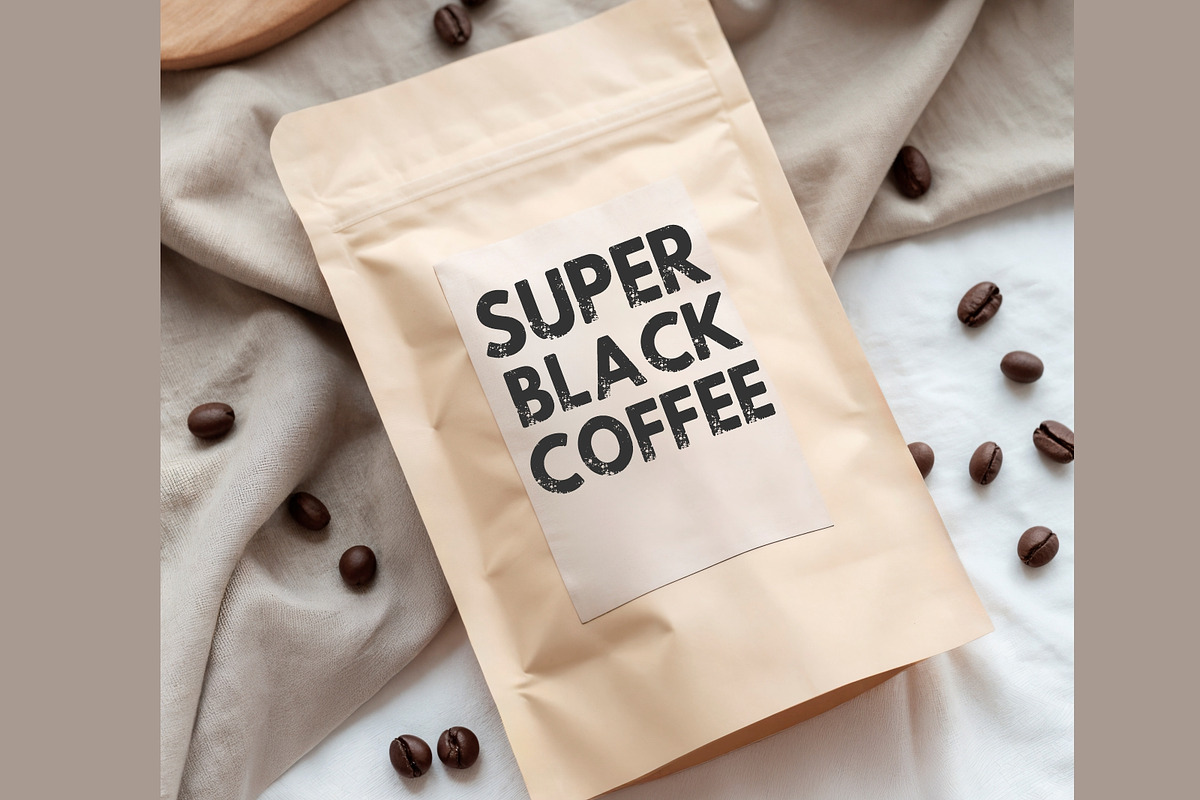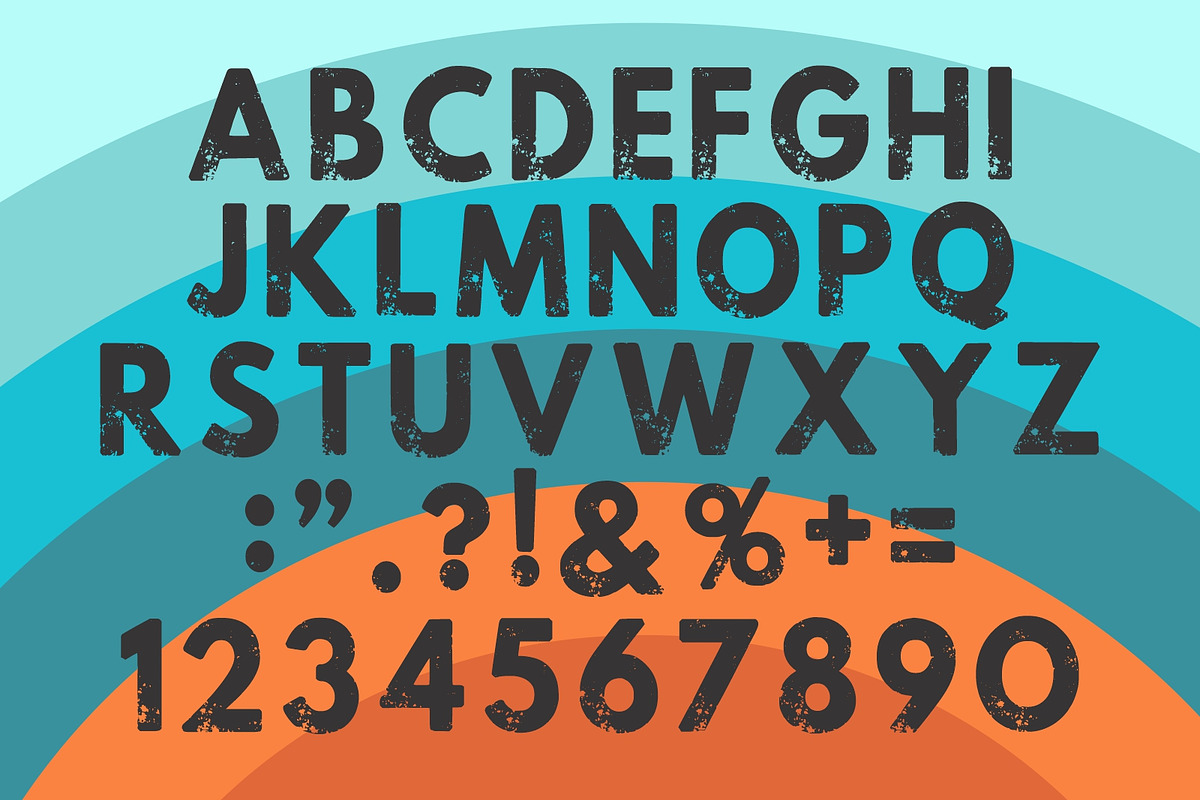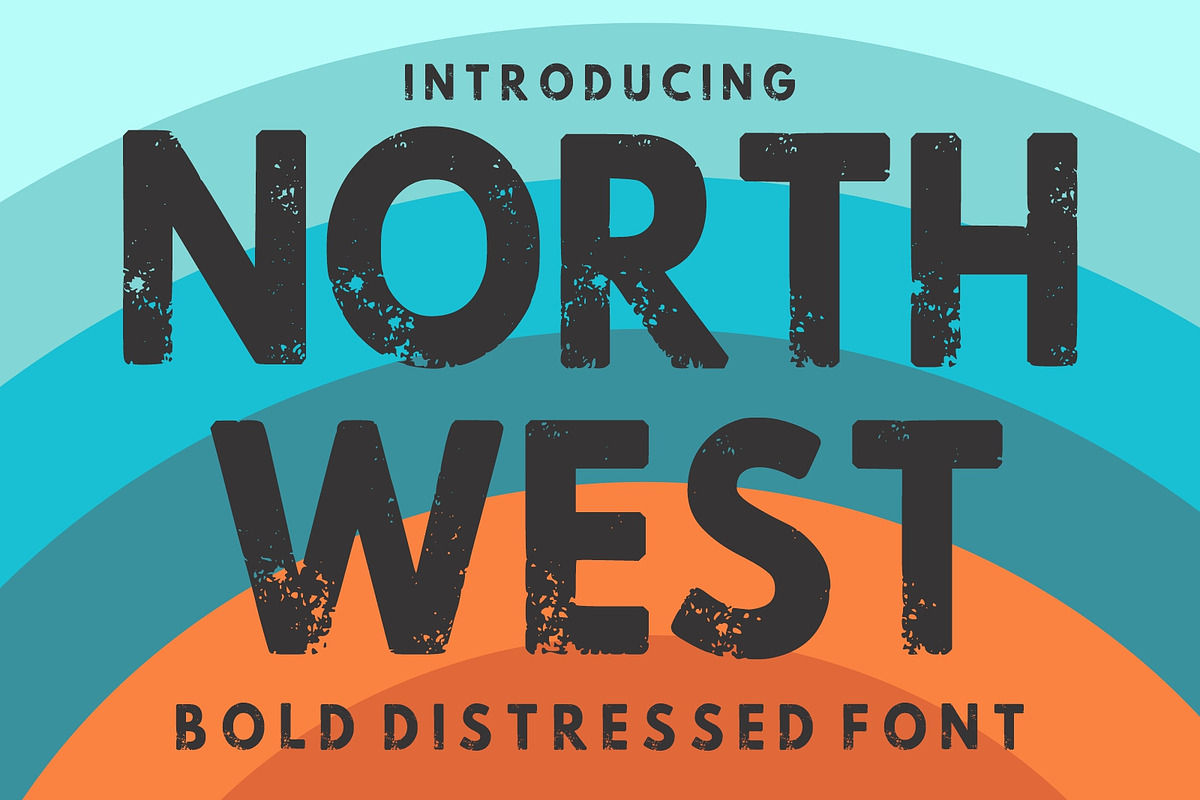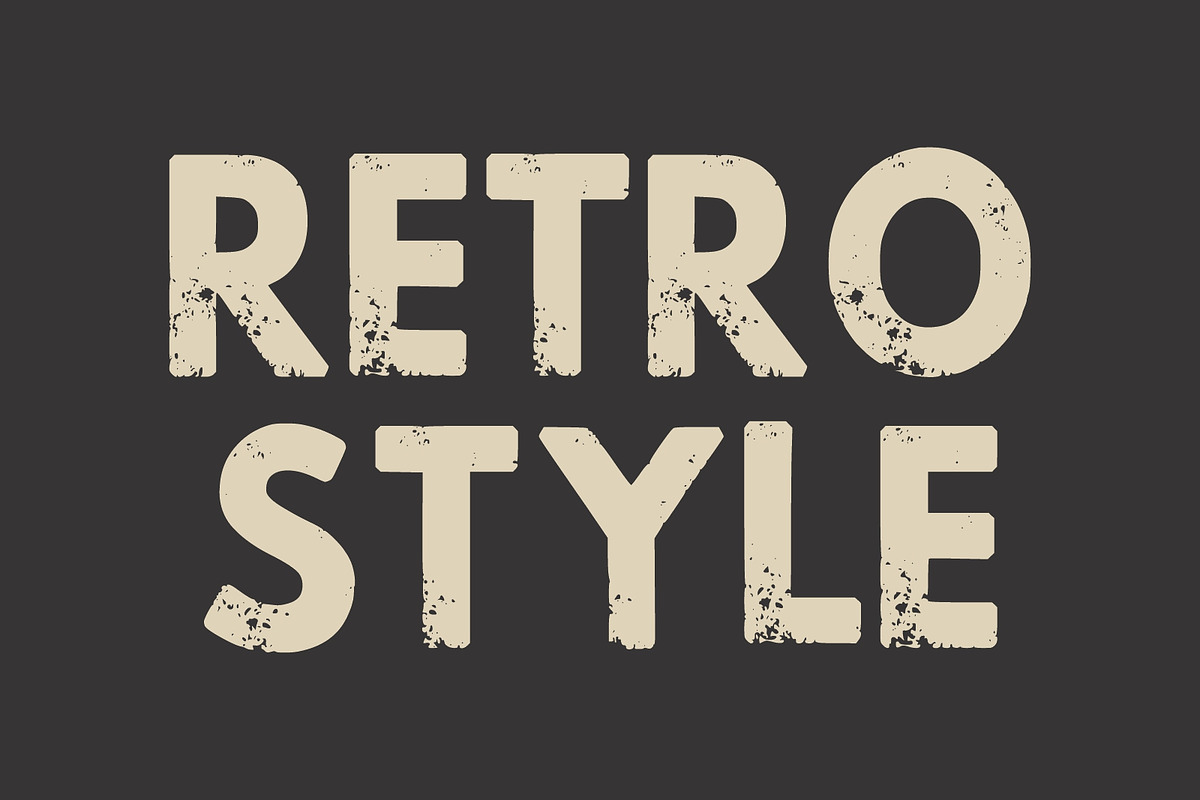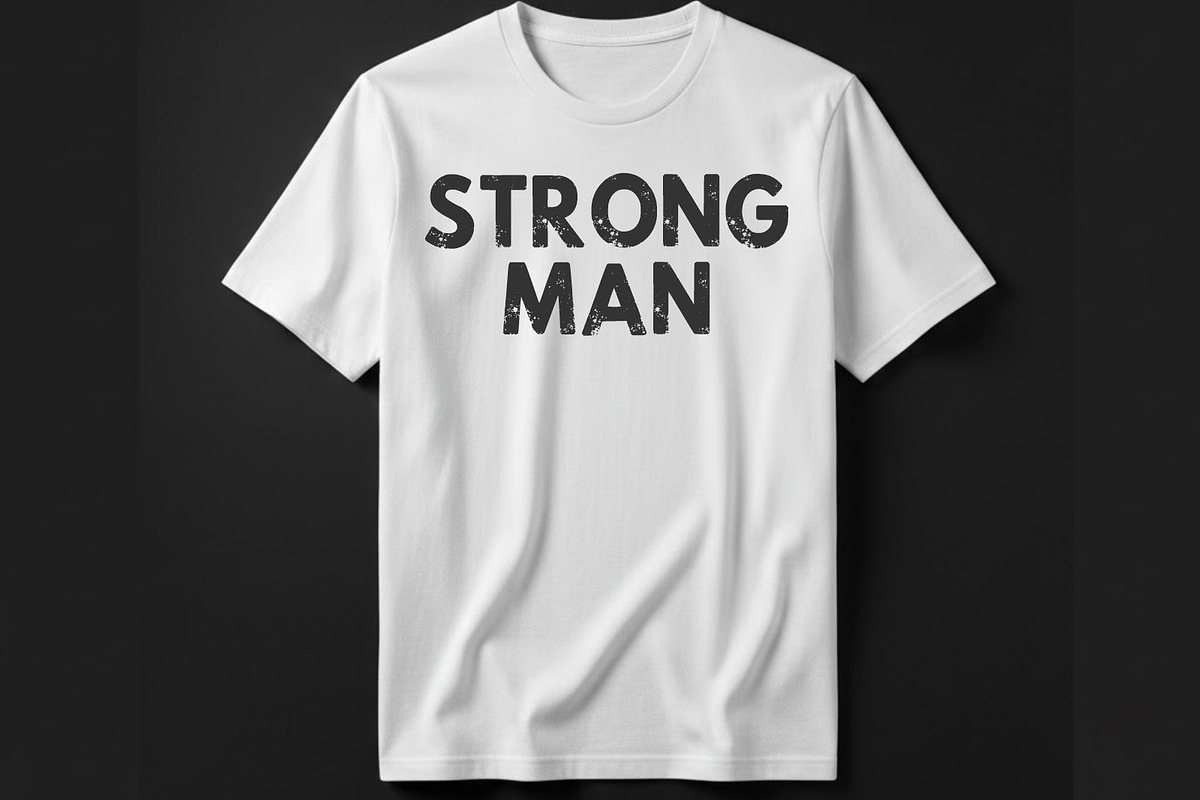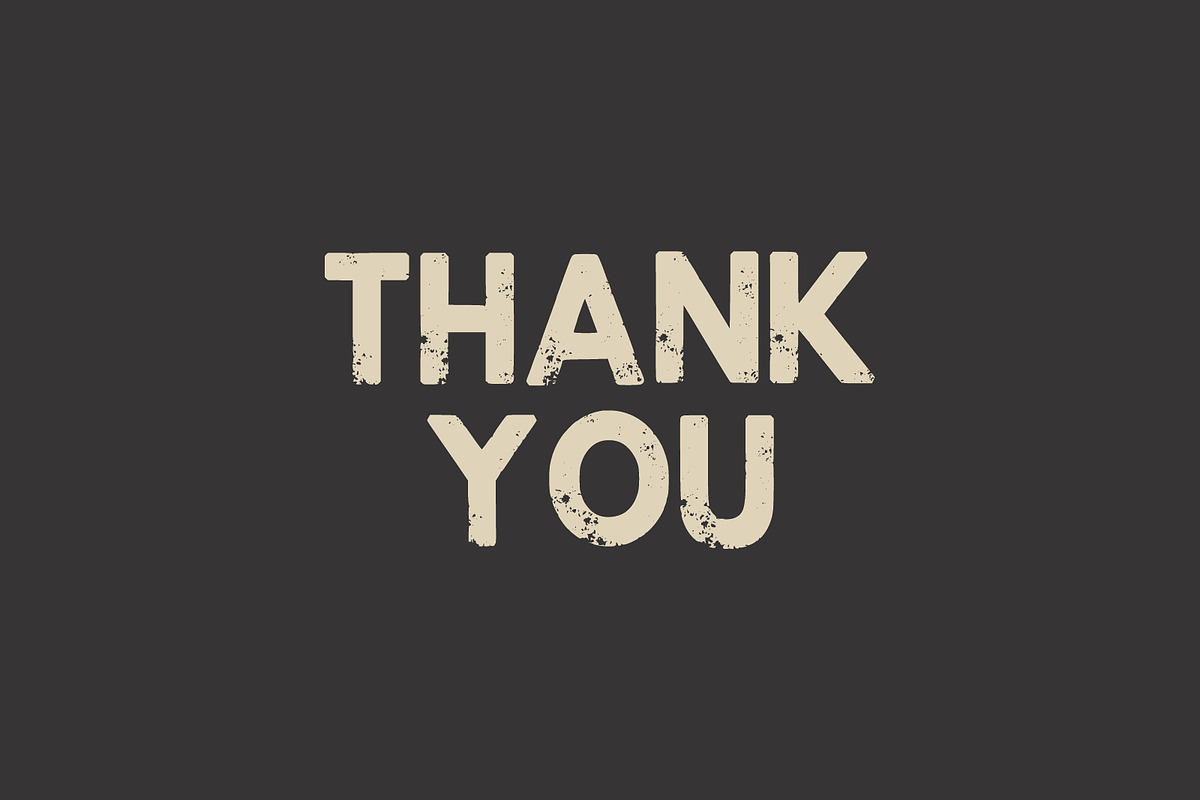
North West Vintage Font
North West is a bold distressed display font that combines modern simplicity with authentic vintage texture. Its strong letterforms and rugged grunge details make it perfect for creating eye-catching headlines, outdoor branding, adventure-themed projects, and retro-inspired designs.
Designed for maximum impact, North West works beautifully on logos, posters, T-shirts, packaging, labels, social media graphics, stickers, merchandise, and branding. The distressed texture gives every design a handcrafted, worn appearance while maintaining excellent readability in both print and digital applications.
Whether you're designing for outdoor brands, camping gear, travel, mountain adventures, coffee shops, breweries, or lifestyle products, North West brings a bold and timeless personality to your creative work.